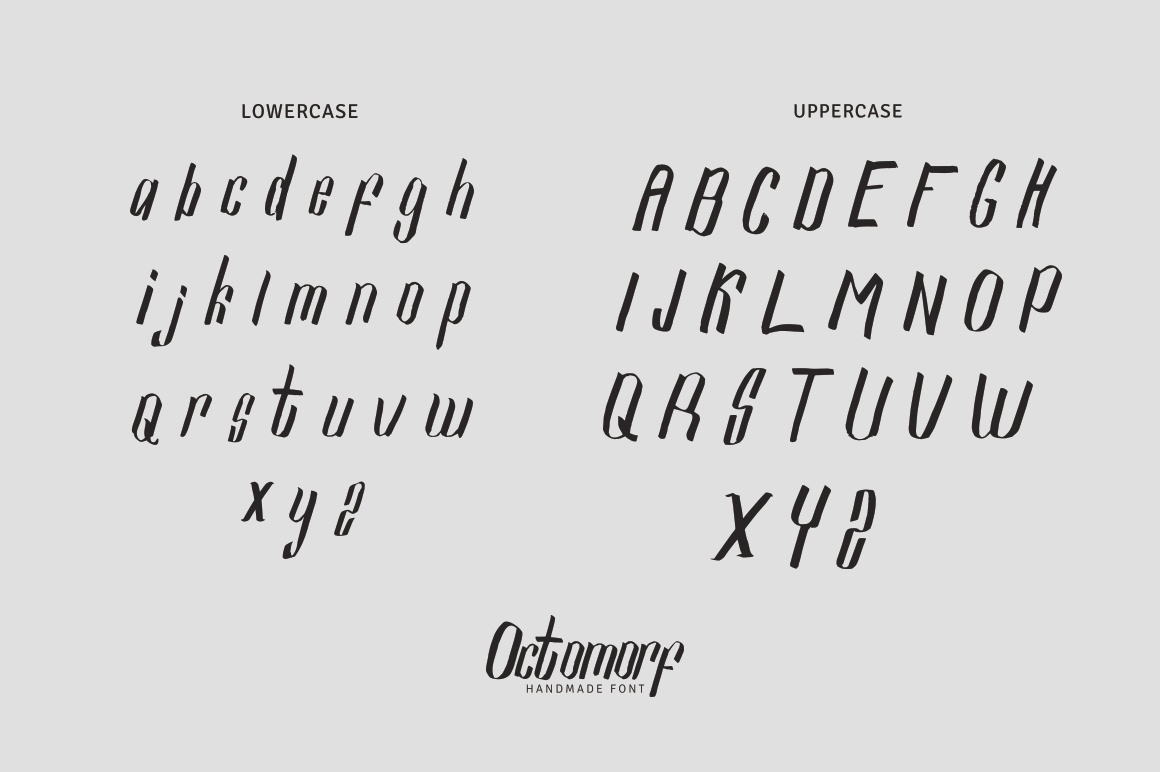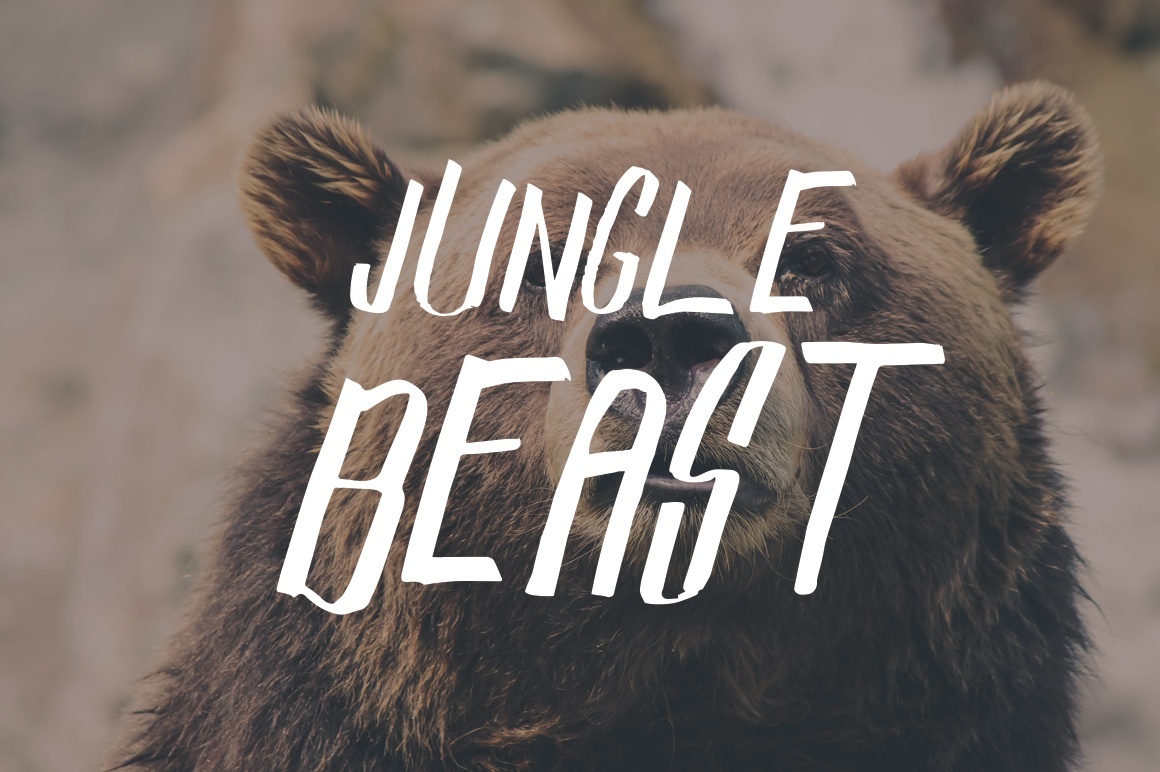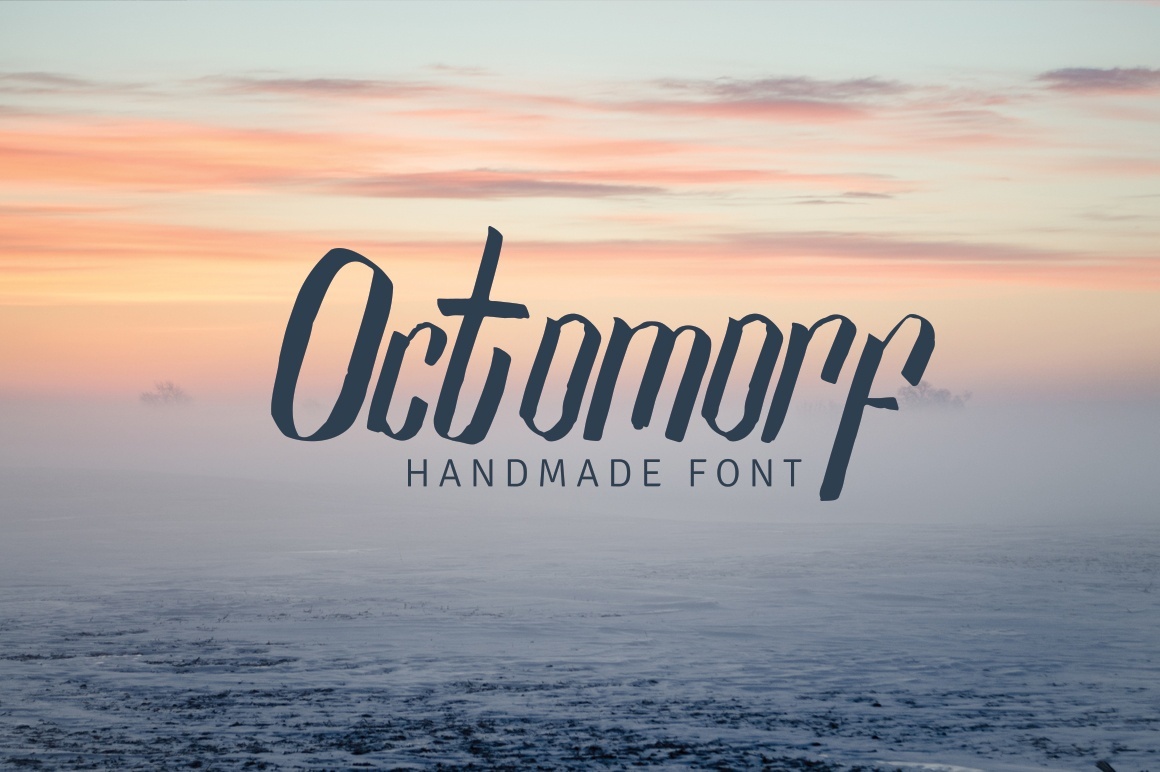
Octomorf Handmade
Octomorf is a handmade font in 2 different types uppercase and lowercase. TTFfile included. this is the First generation font from ovoz digital.